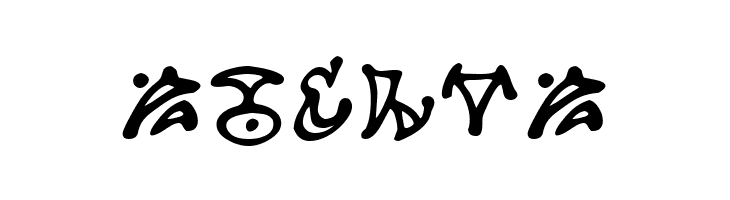
• DarkArts BB Font
A mystical, rune-like decorative font with intricate curves and bold strokes.
• MutantAcademyBB Font
A bold, slab serif font with a strong, geometric design ideal for impactful displays.
• MutantAcademyDCBB Font
Bold, outlined font with a strong, three-dimensional appearance.
• Twelve Ton Fishstick Font
A playful, hand-drawn font with uneven, jagged edges and a casual vibe.
• WizardSpeak Font
A decorative and mystical font with flowing, intricate characters.
• WizardSpeak Worn Font
A decorative, mystical font with swirling, abstract characters and a worn texture.
• Praetorium BB Font
A bold, angular font with a geometric and commanding style.
• DigitalStripBB-BoldItalic Font
A bold, italicized, handwritten-style font with a playful and dynamic appearance.
• OneTwoPunch BB Font
A bold, dynamic font with a comic book style and energetic feel.
• OneTwoPunch BB Italic Font
A bold, italic, and dynamic font with a rugged, energetic style.